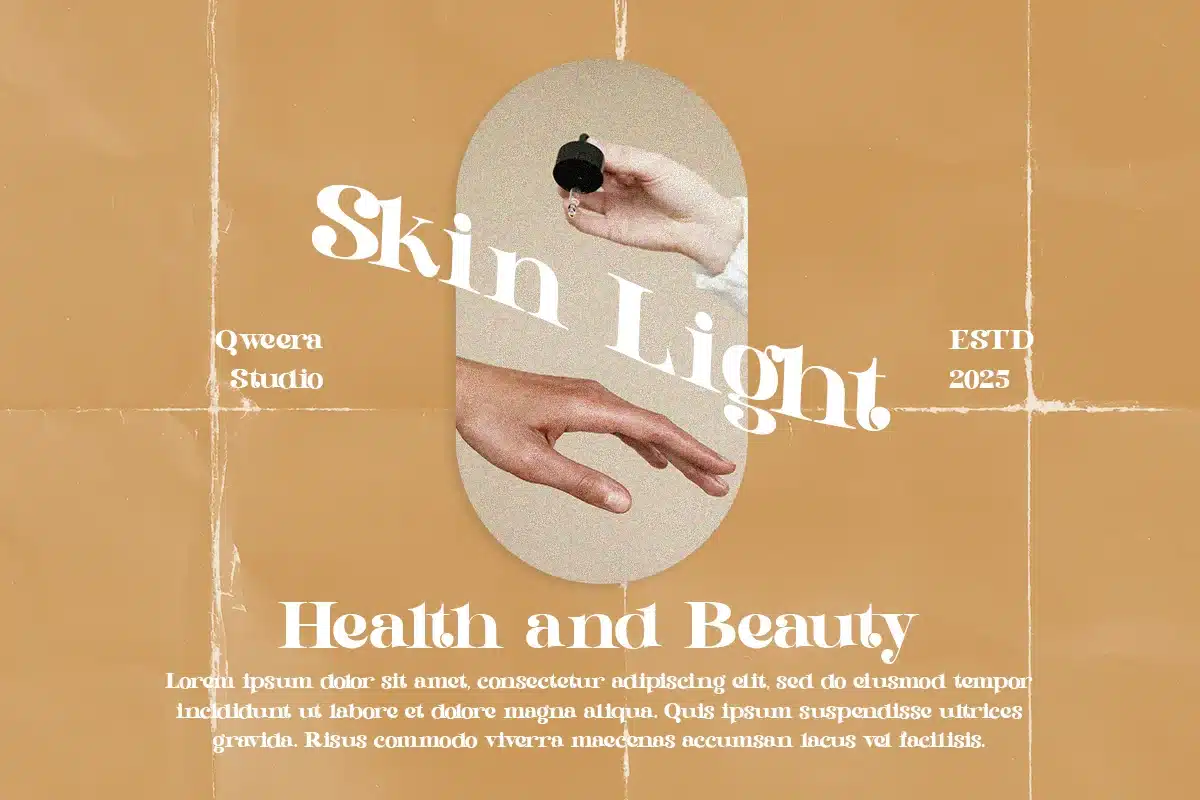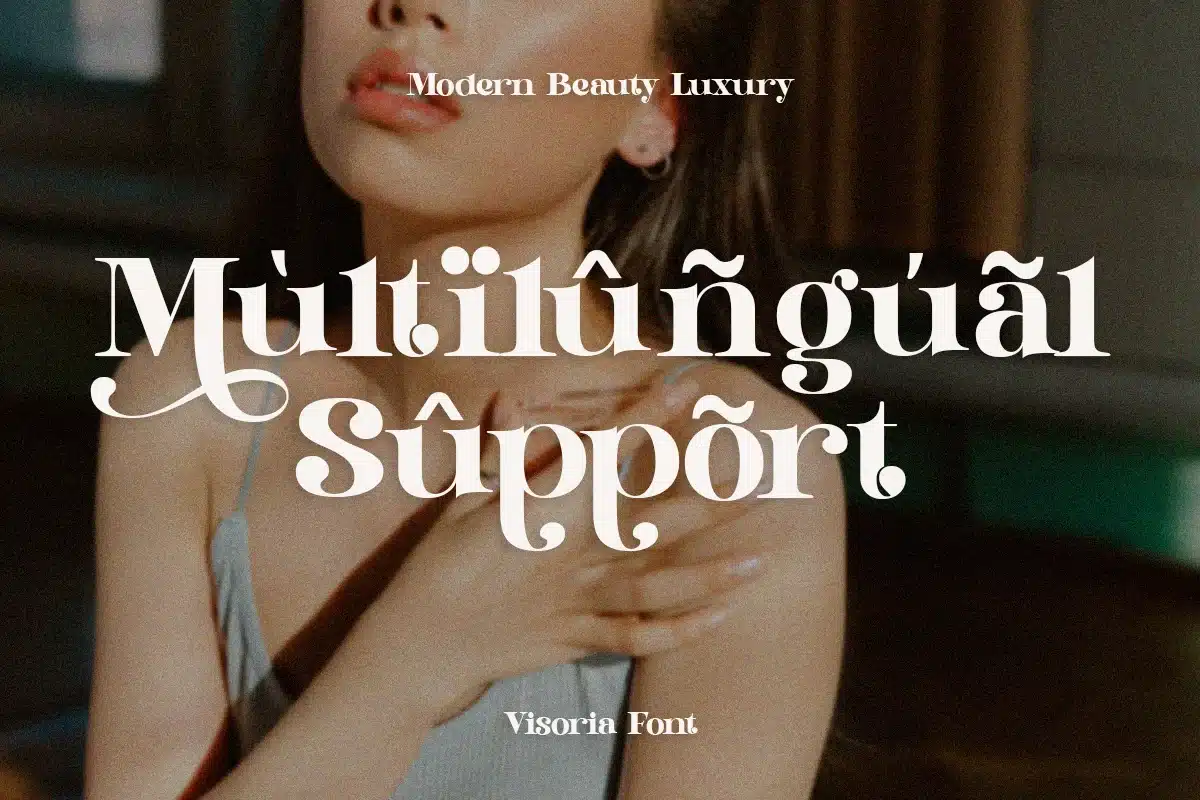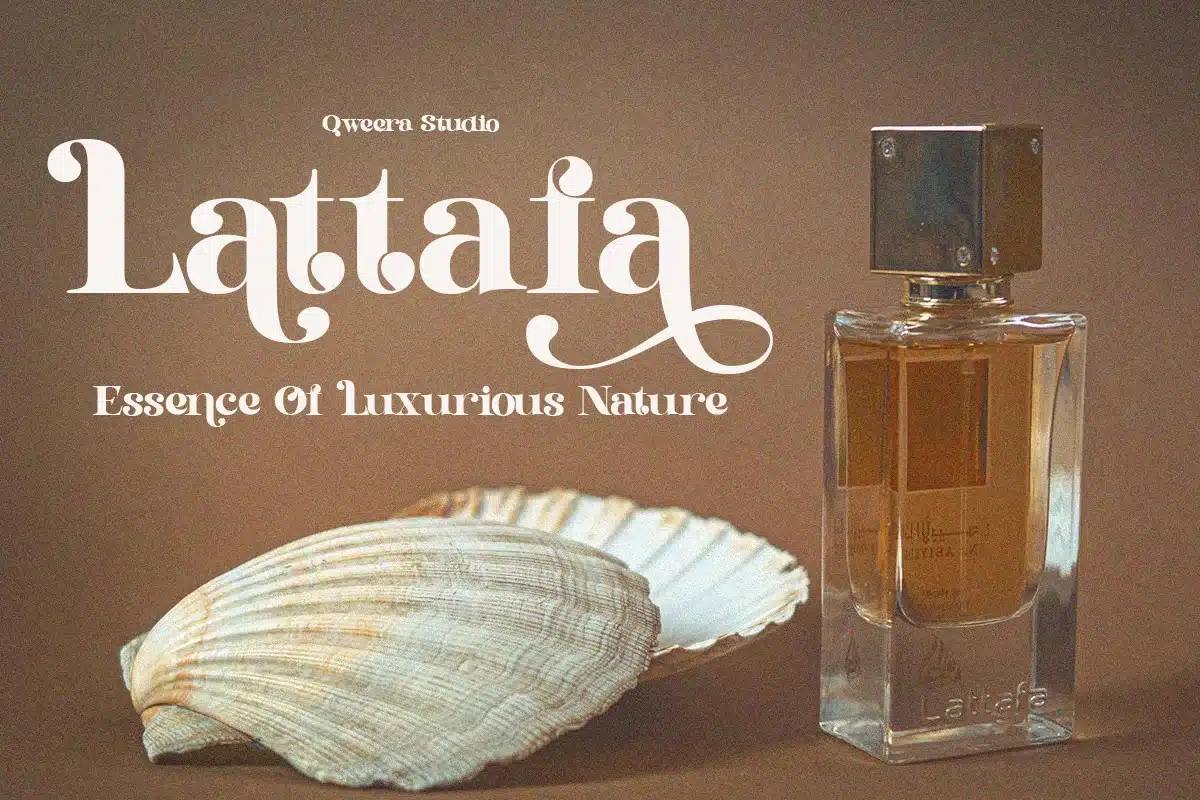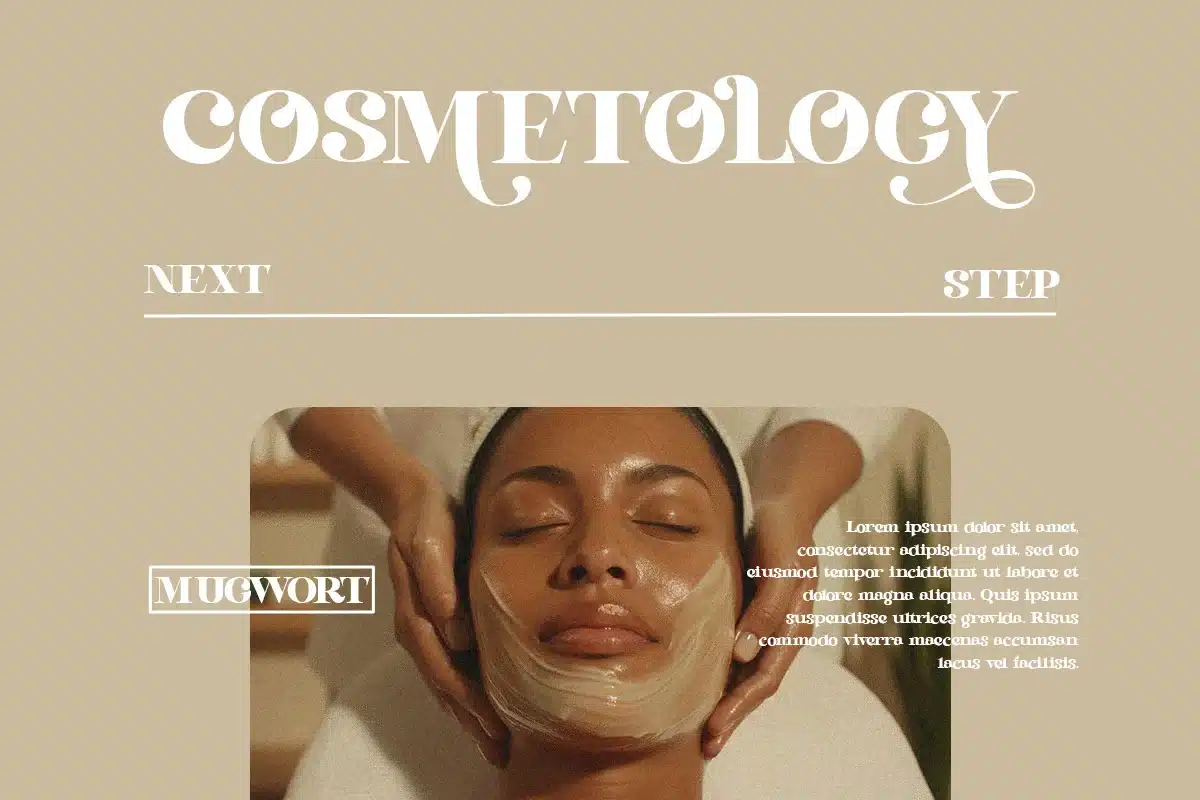
Visoria – Modern Luxury Logo Font
Visoria – Modern Luxury Logo Font for Premium Branding
Visoria is an exquisite modern serif font that redefines luxury in typography. Featuring both regular and italic versions with sophisticated alternates and ligatures, this typeface is meticulously crafted for high-end branding, elegant logos, premium packaging, and luxurious editorial designs.
Where Contemporary Elegance Meets Timeless Sophistication
With its razor-sharp serifs and graceful curves, Visoria delivers unmatched versatility for luxury branding projects. The carefully designed alternates and ligatures allow you to create stunning custom wordmarks that exude exclusivity and refinement.
Premium Features Include:
- Luxury Serif Design - Perfect for high-end branding and corporate identity
- Dual Style Versions - Regular & italic for dynamic typographic hierarchy
- Exclusive Alternates - 25+ special glyphs for unique logo variations
- Elegant Ligatures - Sophisticated letter combinations for flawless typography
- Universal Application - From business cards to billboard designs
- Extended Language Support - Complete Latin character set plus symbols
Transform Your Brand with Visoria's Luxe Aesthetic
Ideal for:
- Luxury fashion branding
- Premium product packaging
- Sophisticated logo design
- High-end editorial layouts
- Exclusive invitation suites
Elevate Your Designs with Visoria's Refined Elegance